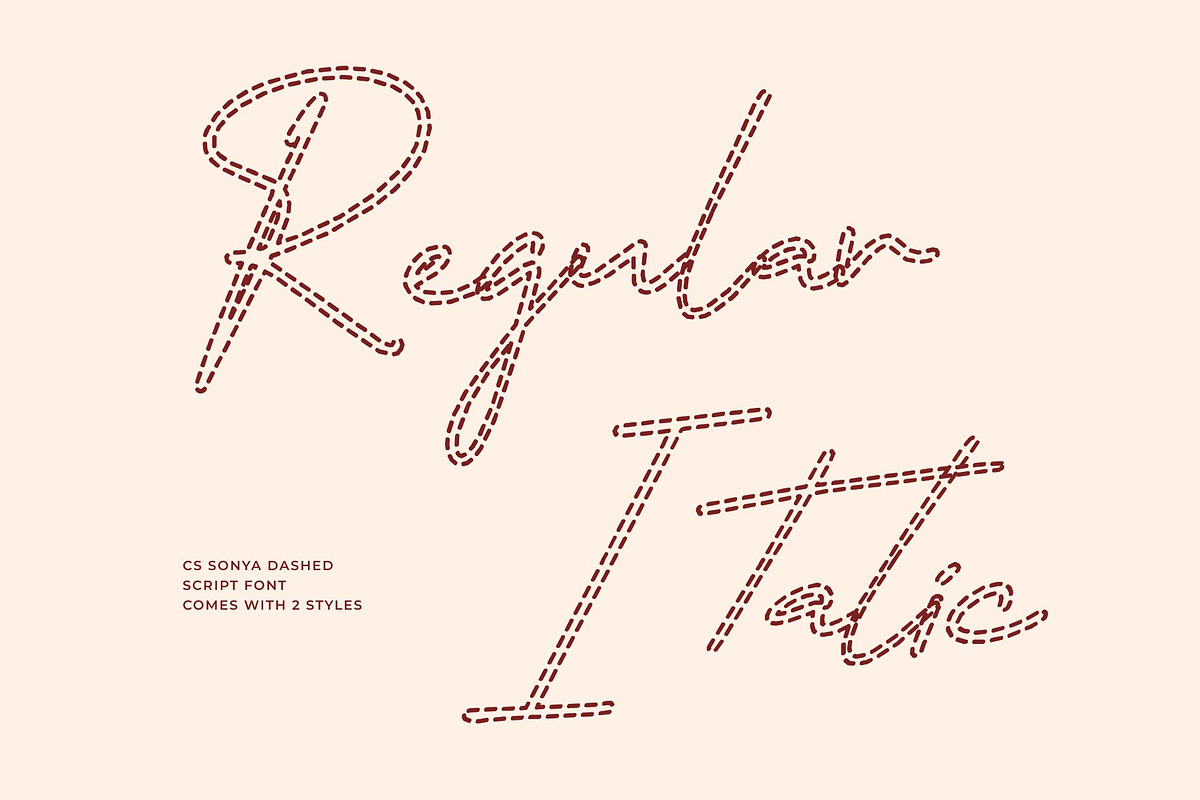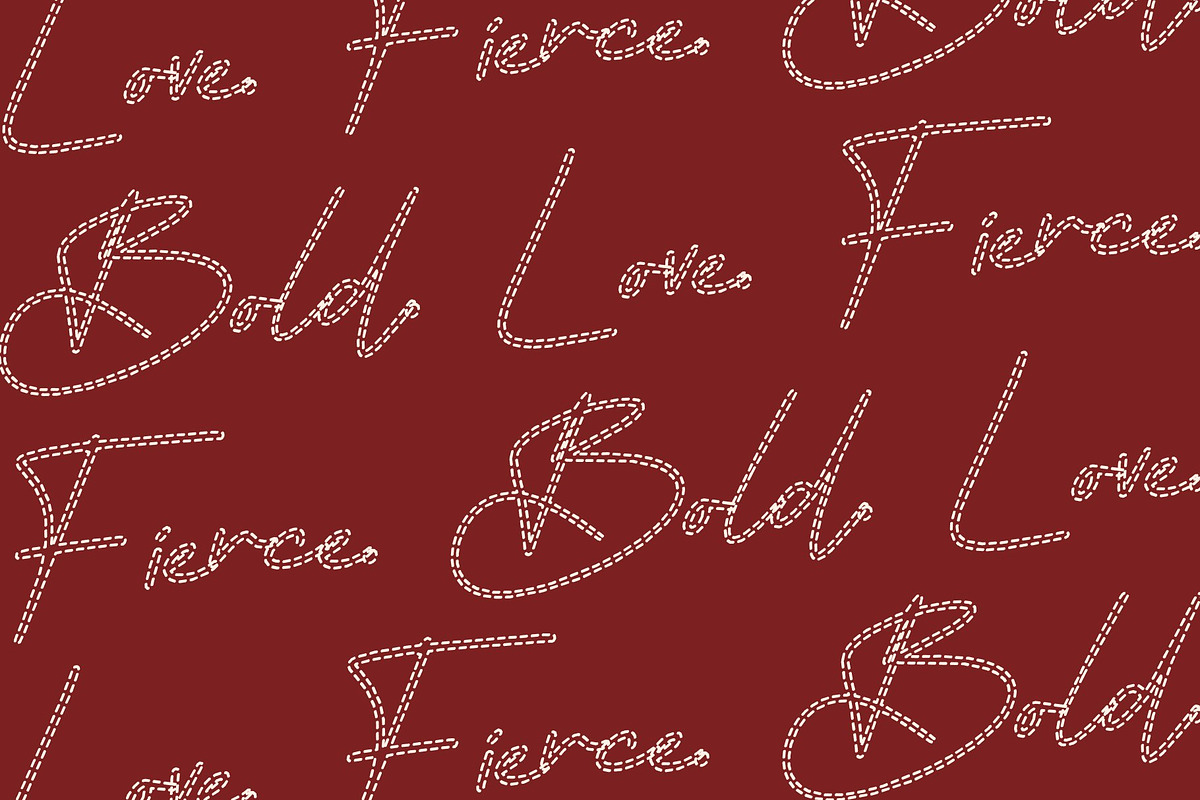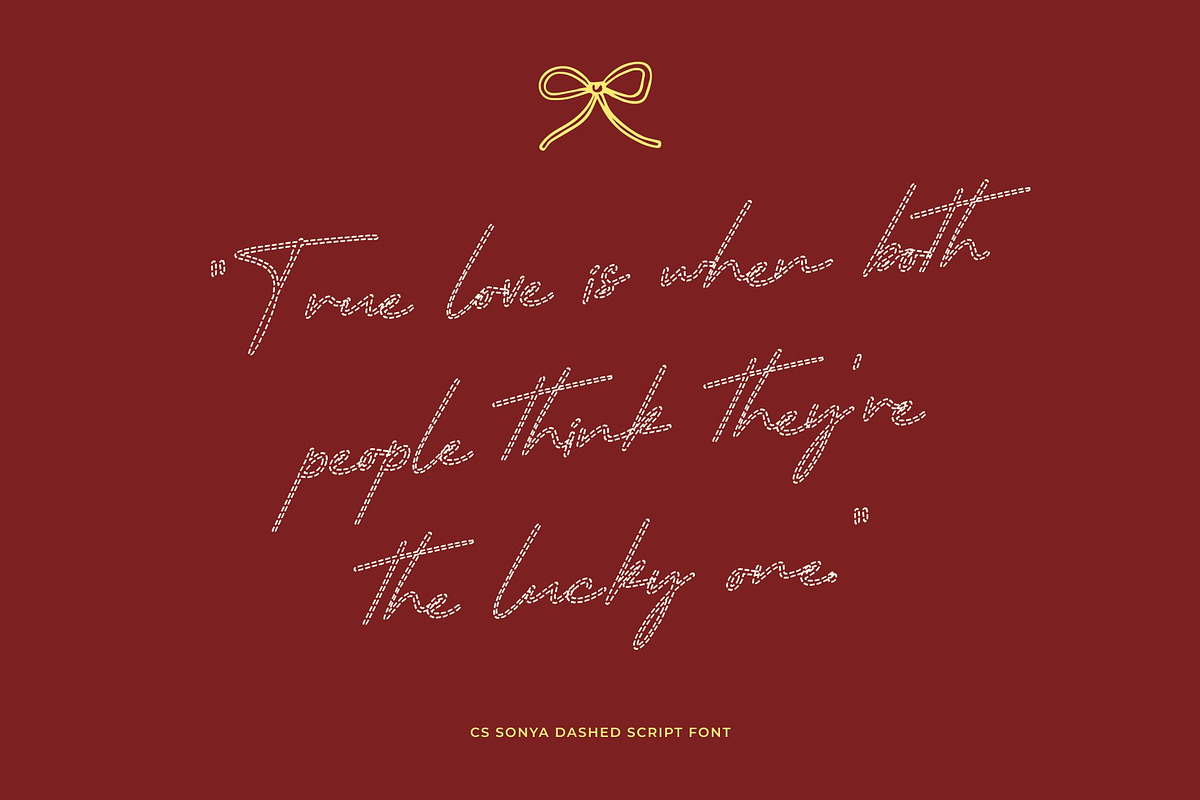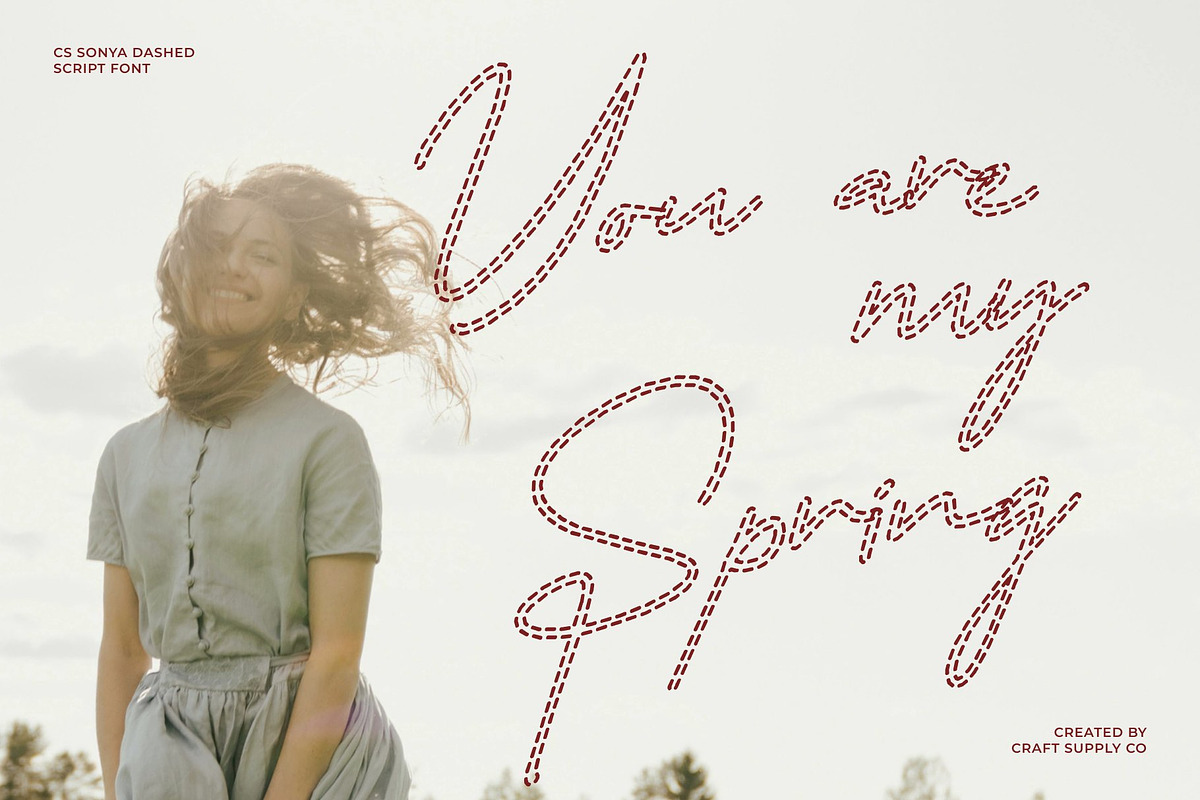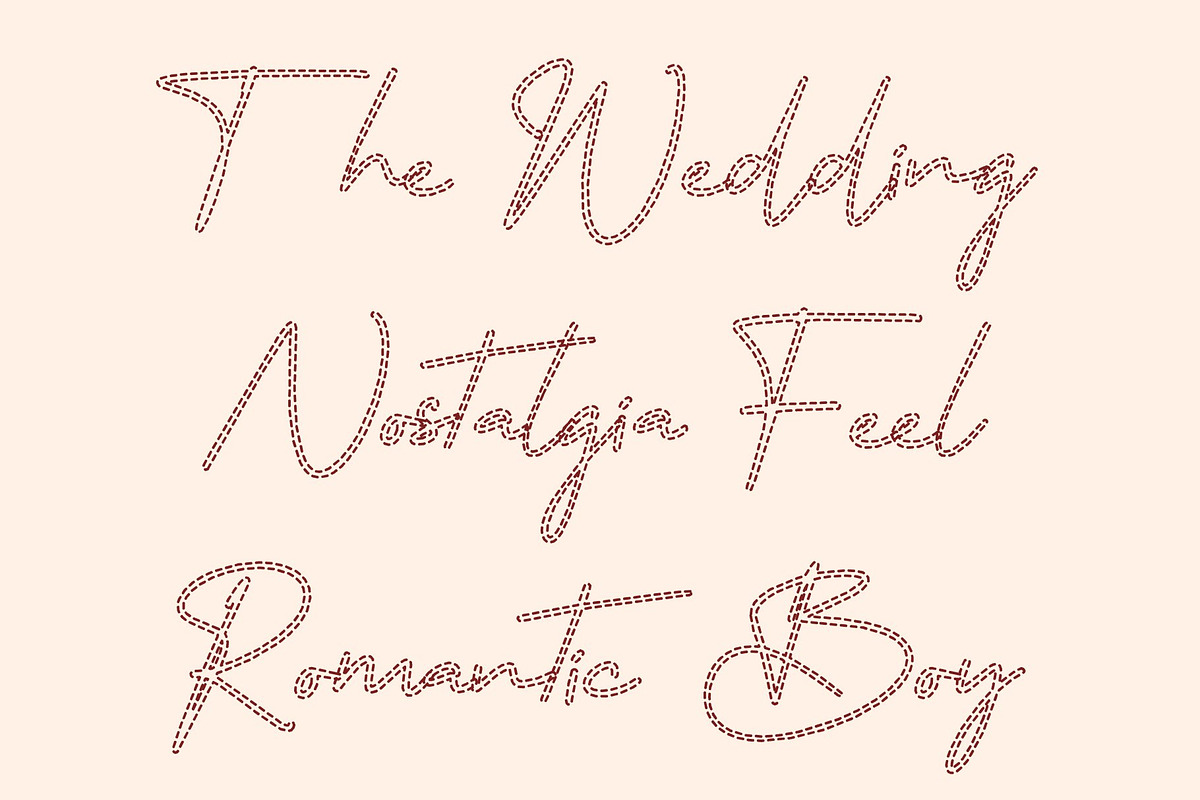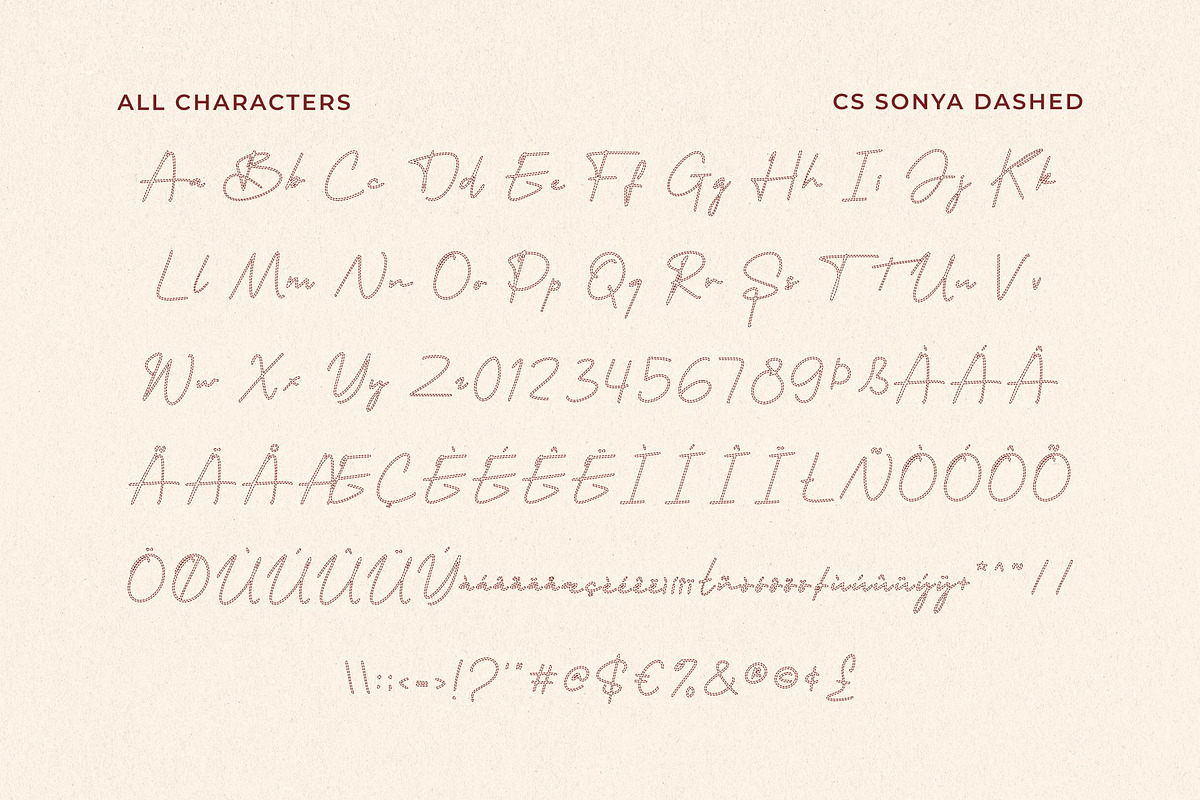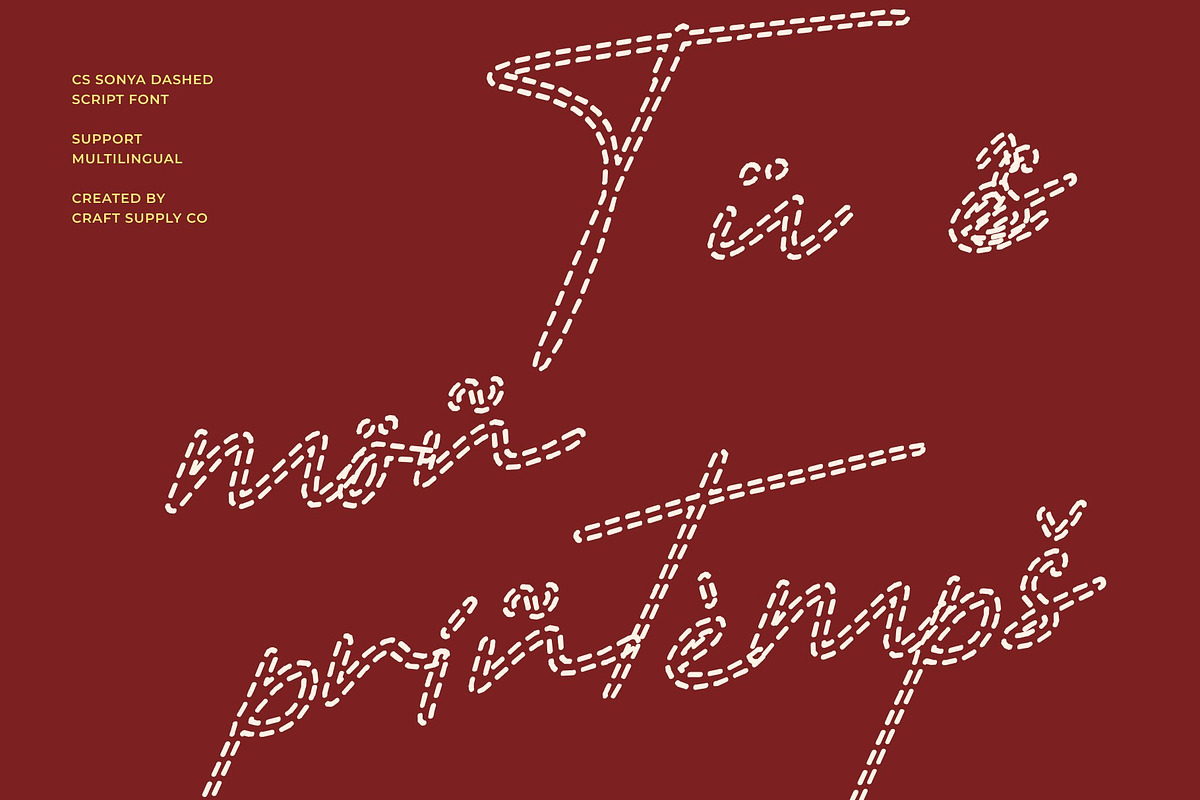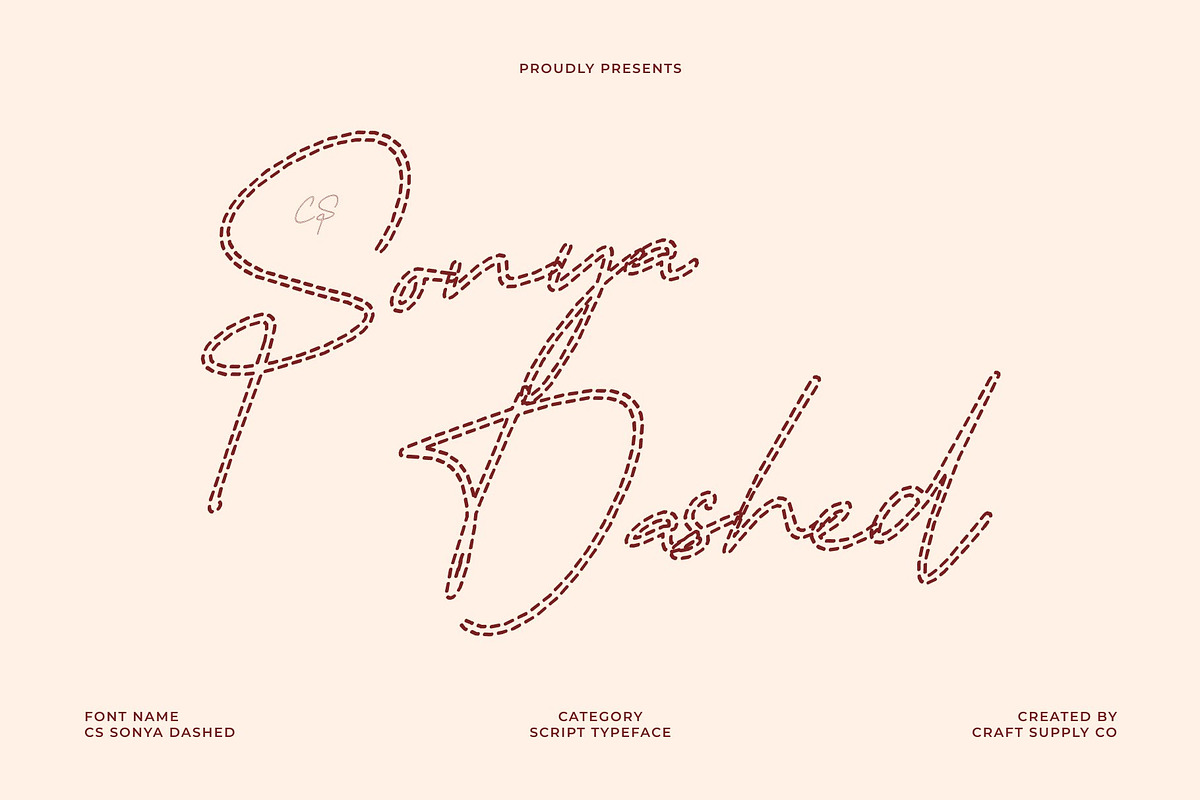
CS Sonya Dashed
CS Sonya Dashed – Personal Signature Style with Timeless Elegance
Signature Script Font with Handwritten Authenticity This is a signature script font designed to capture the personal and unique character of handwritten signatures. Inspired by natural pen movement and fluid writing, the dashed stroke style transforms smooth script lines into delicate broken paths, creating an authentic handwritten feel with a modern creative twist.
Natural Flow with Distinctive Character The letterforms feature graceful connections and organic stroke variations that closely resemble real signature writing. The dashed structure enhances this natural rhythm, giving each word a light, airy movement while maintaining clarity and harmony. The result feels exclusive, custom, and thoughtfully crafted.
Elegant Expression for High-End Design Balancing warmth and refinement, this font brings a polished look suitable for premium applications. Its signature style conveys professionalism and luxury while keeping a human touch. The dashed texture adds subtle artistic flair, making designs feel both elegant and creatively distinctive.
Ideal for Logos, Branding, and Luxury Invitations Perfect for upscale and personal projects, this font shines in logos, branding, luxury invitations, packaging, and fashion or beauty visuals. Its signature-inspired style makes it especially suited for personal brands, boutique businesses, weddings, and exclusive events that need a refined yet expressive typographic voice.
CS Sonya Dashed Regular
CS Sonya Dashed Italic